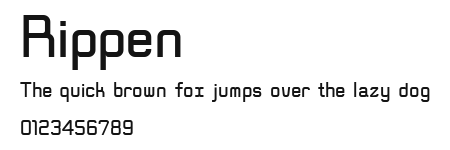
• Font Name: Rippen
• Manufacturer: illllli
About Rippen.ttf
Rippen.ttf is a modern, elegant sans-serif font designed for ultimate readability and visual harmony. Perfect for branding, headlines, web design, and print materials.